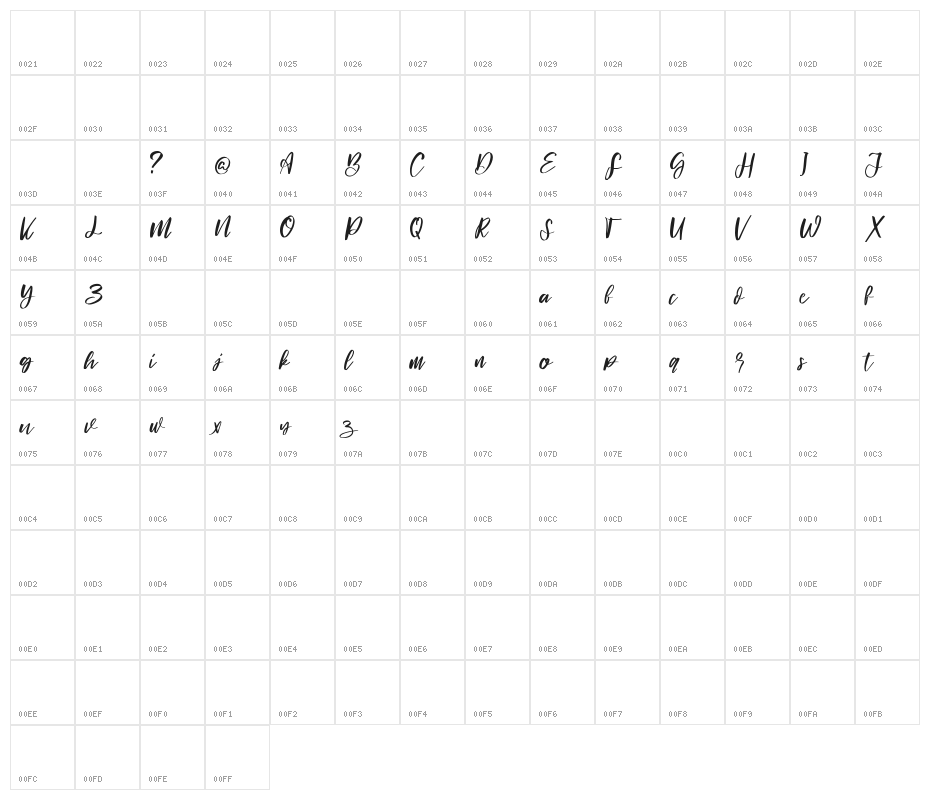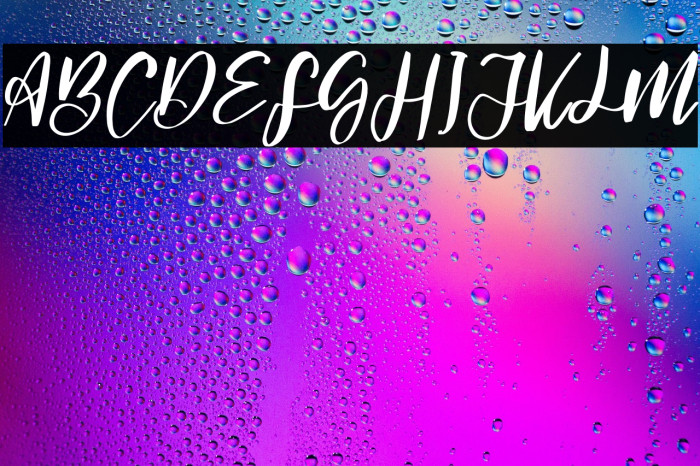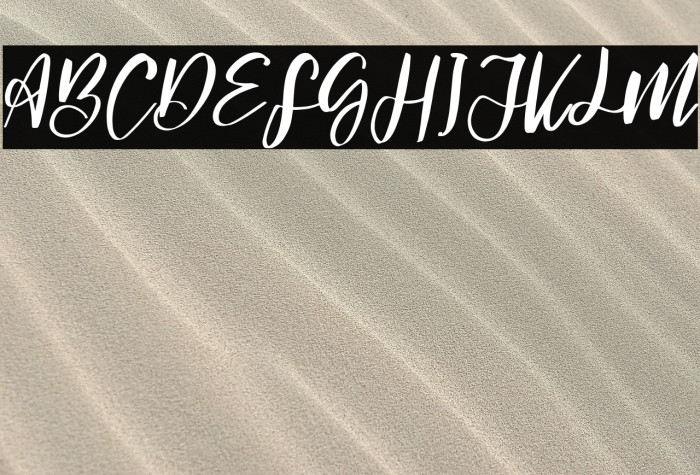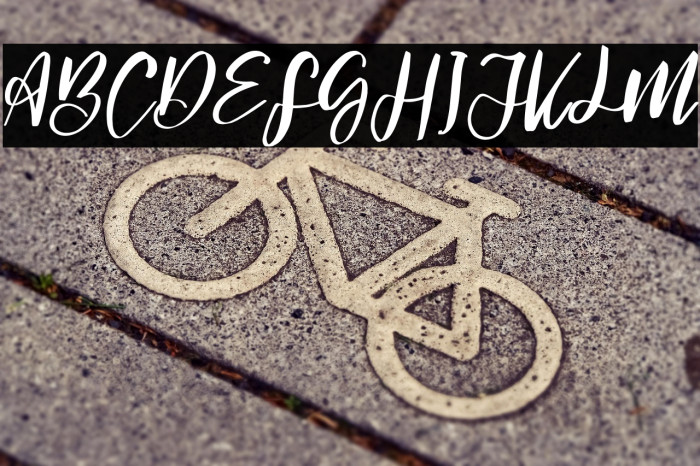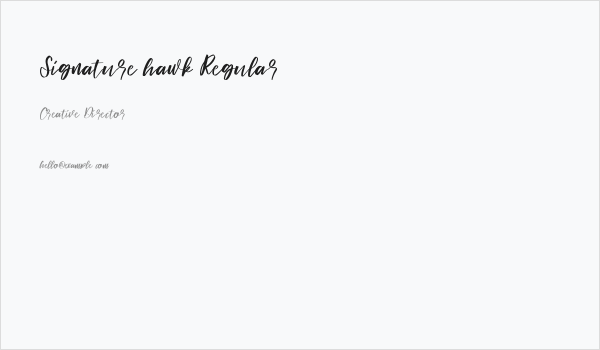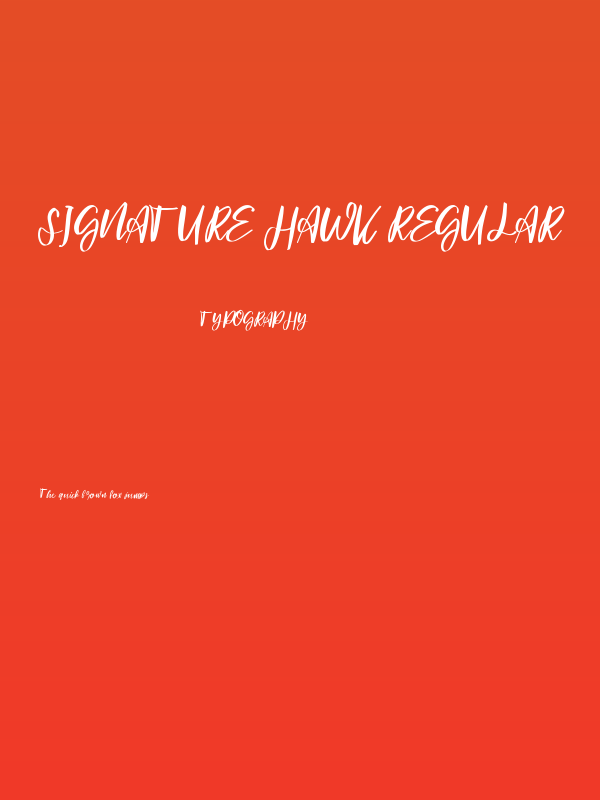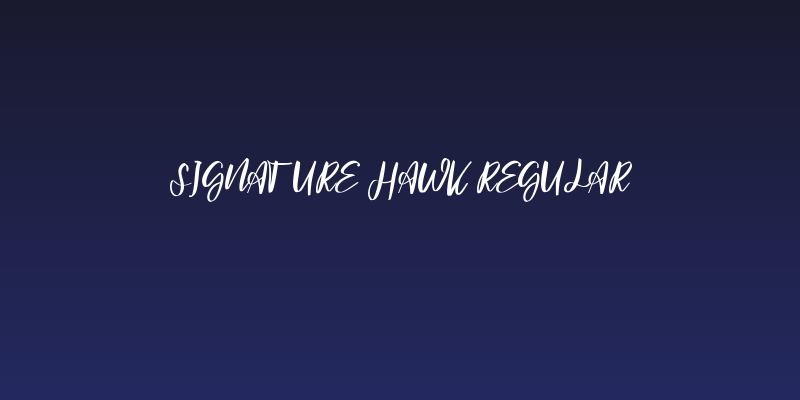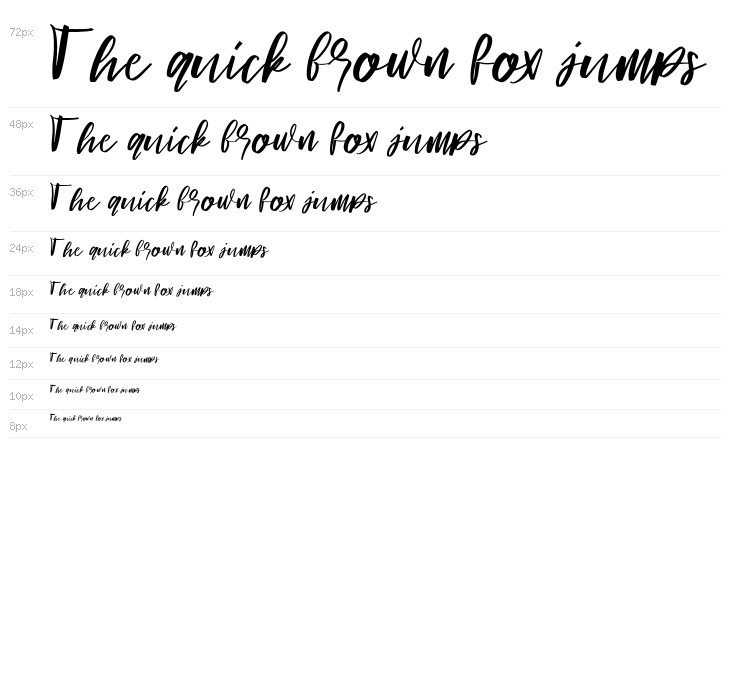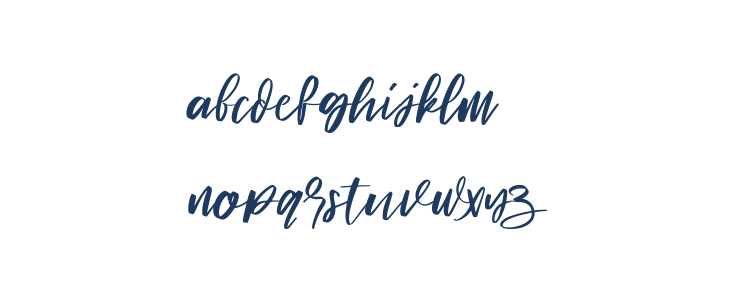
Signature hawk Regular Font
Signature hawk Regular Description
This font exhibits a flowing, cursive style with elegant loops and swashes, creating a sense of movement and grace. The uppercase letters are bold and striking, with distinctive flourishes that add a touch of sophistication. The lowercase letters maintain a consistent flow, enhancing readability while retaining the decorative essence. The numbers and special characters are crafted with the same attention to detail, ensuring a cohesive look across all elements. This font is perfect for projects that require a personal, handwritten touch, such as invitations, branding, or artistic designs.
| Use Case | Logos, Headlines, Artistic designs |
| Proposed Projects | Ideal for invitations, branding, artistic designs, and personal projects. |